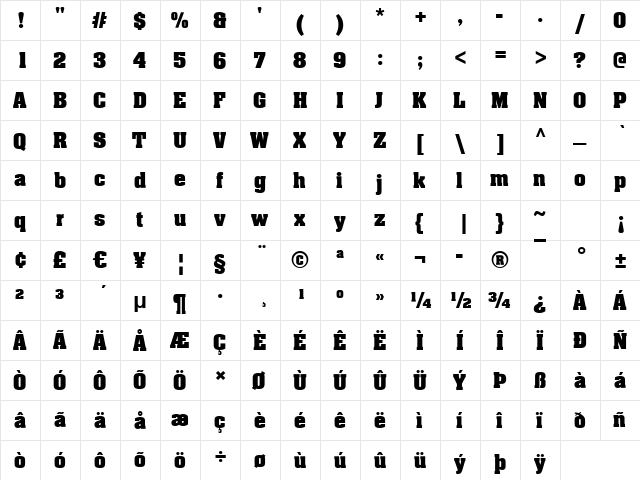
Aargau Bold
Design Context for Aargau Typeface
Aargau offers clean, dependable letterforms without strong stylistic allegiance, making it a practical choice for designers who need flexibility. The heavy weight commands attention and anchors typographic hierarchies.